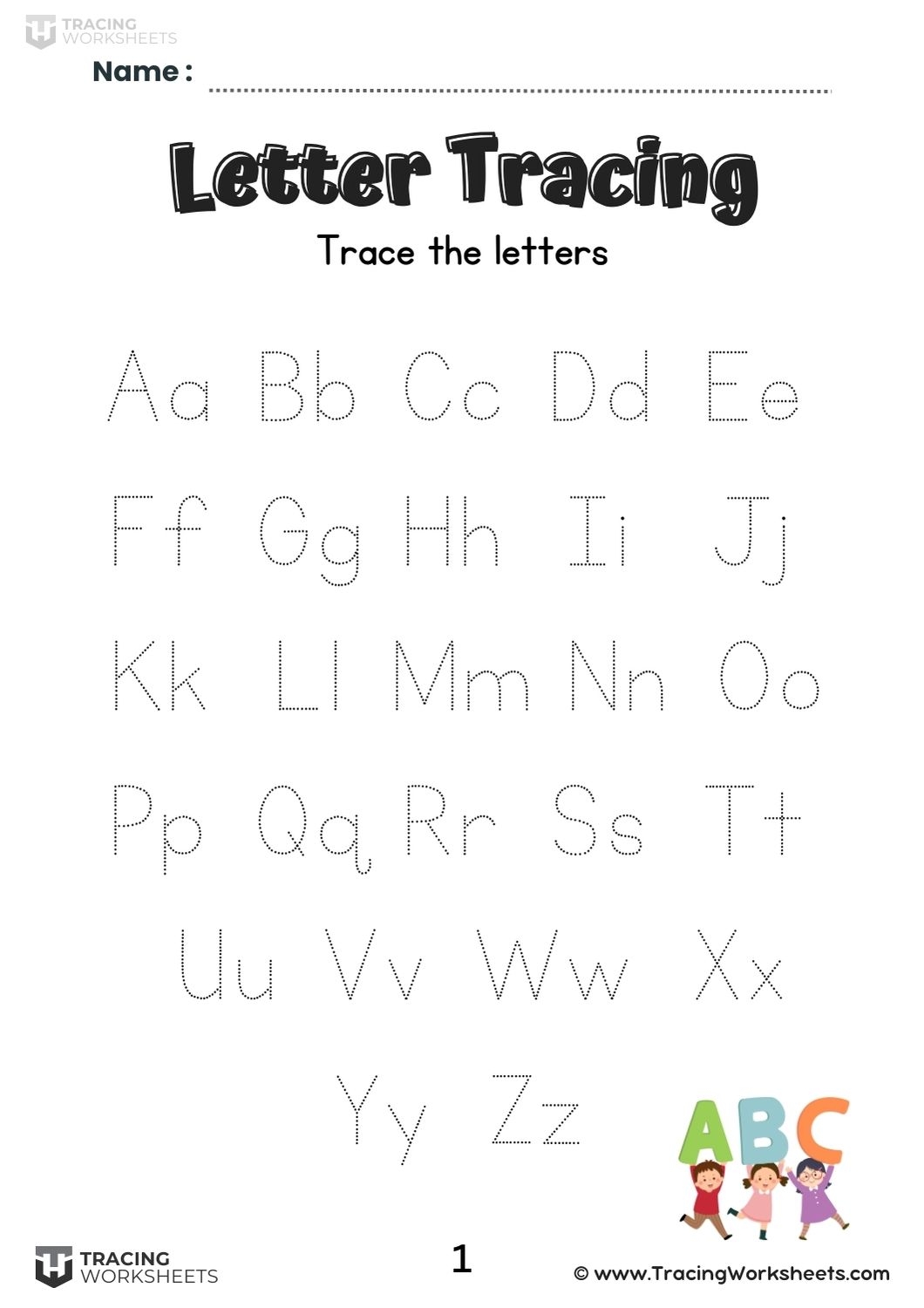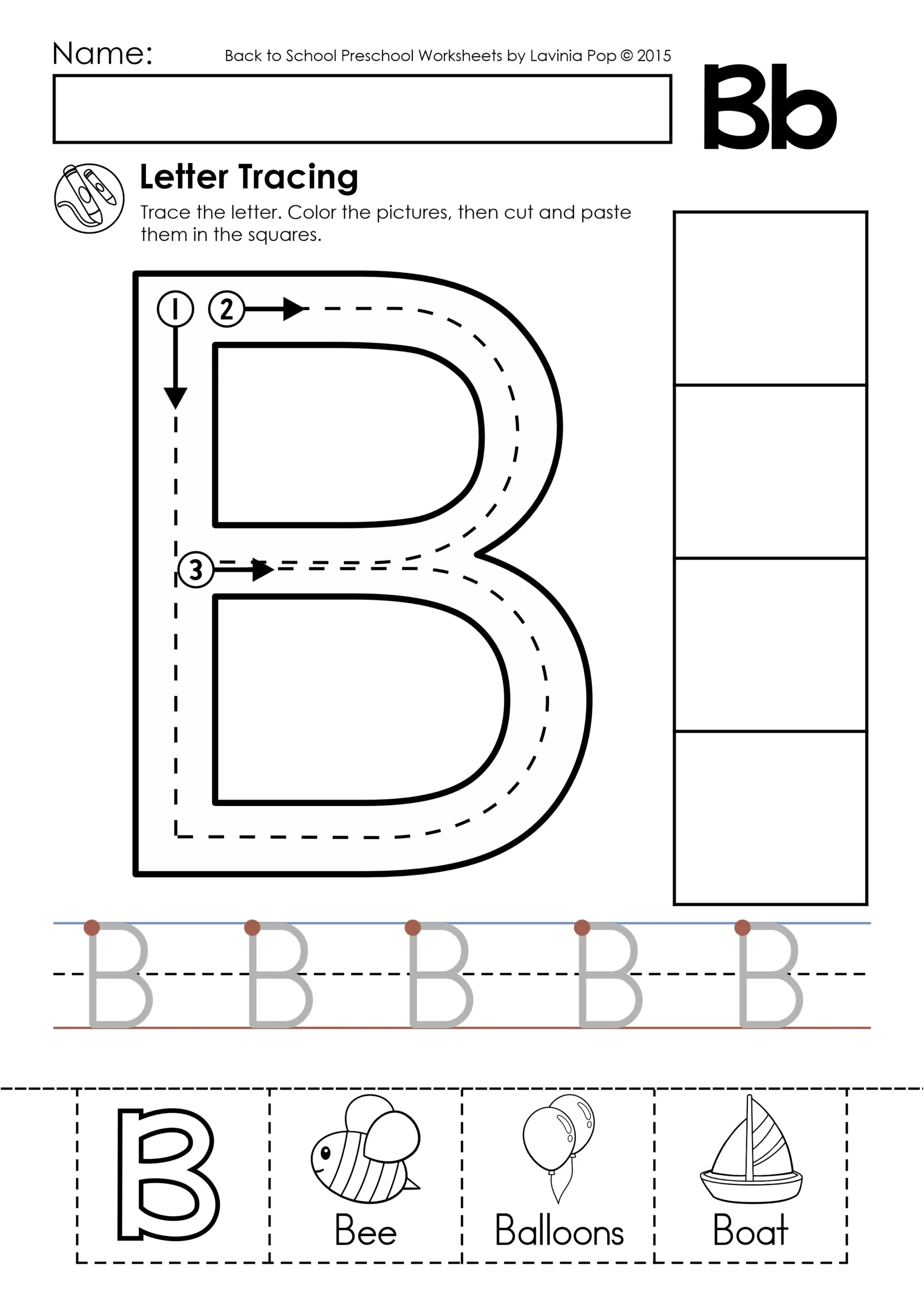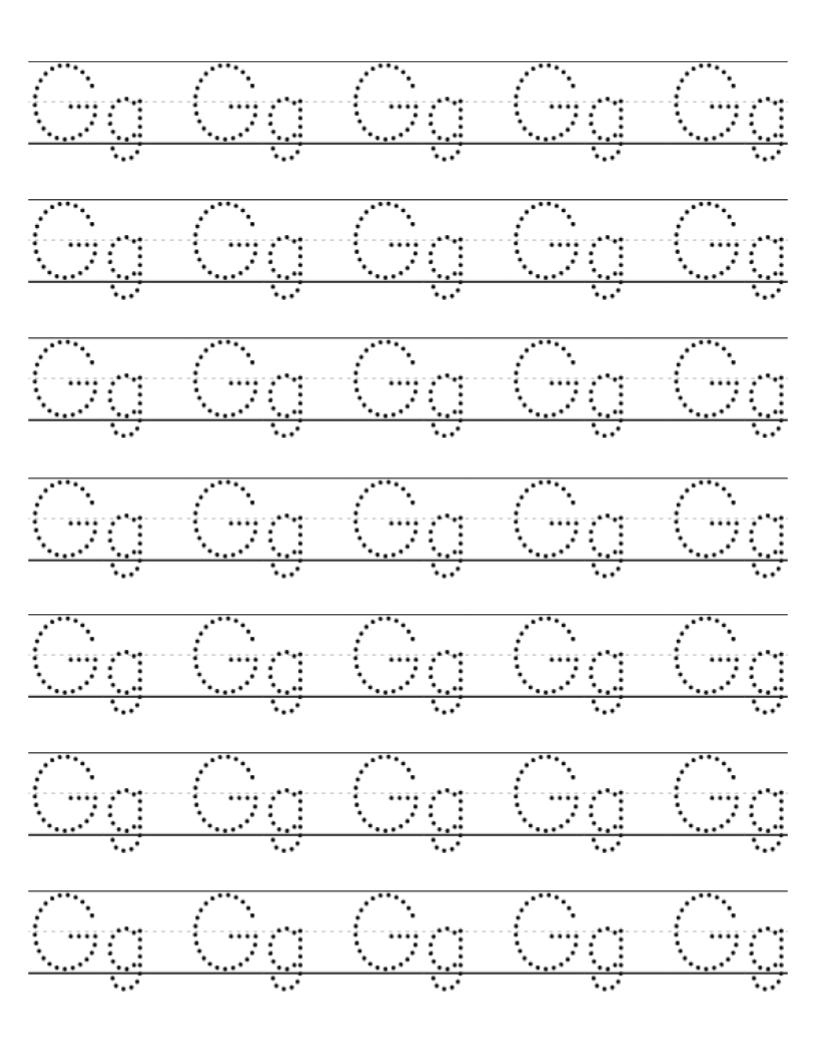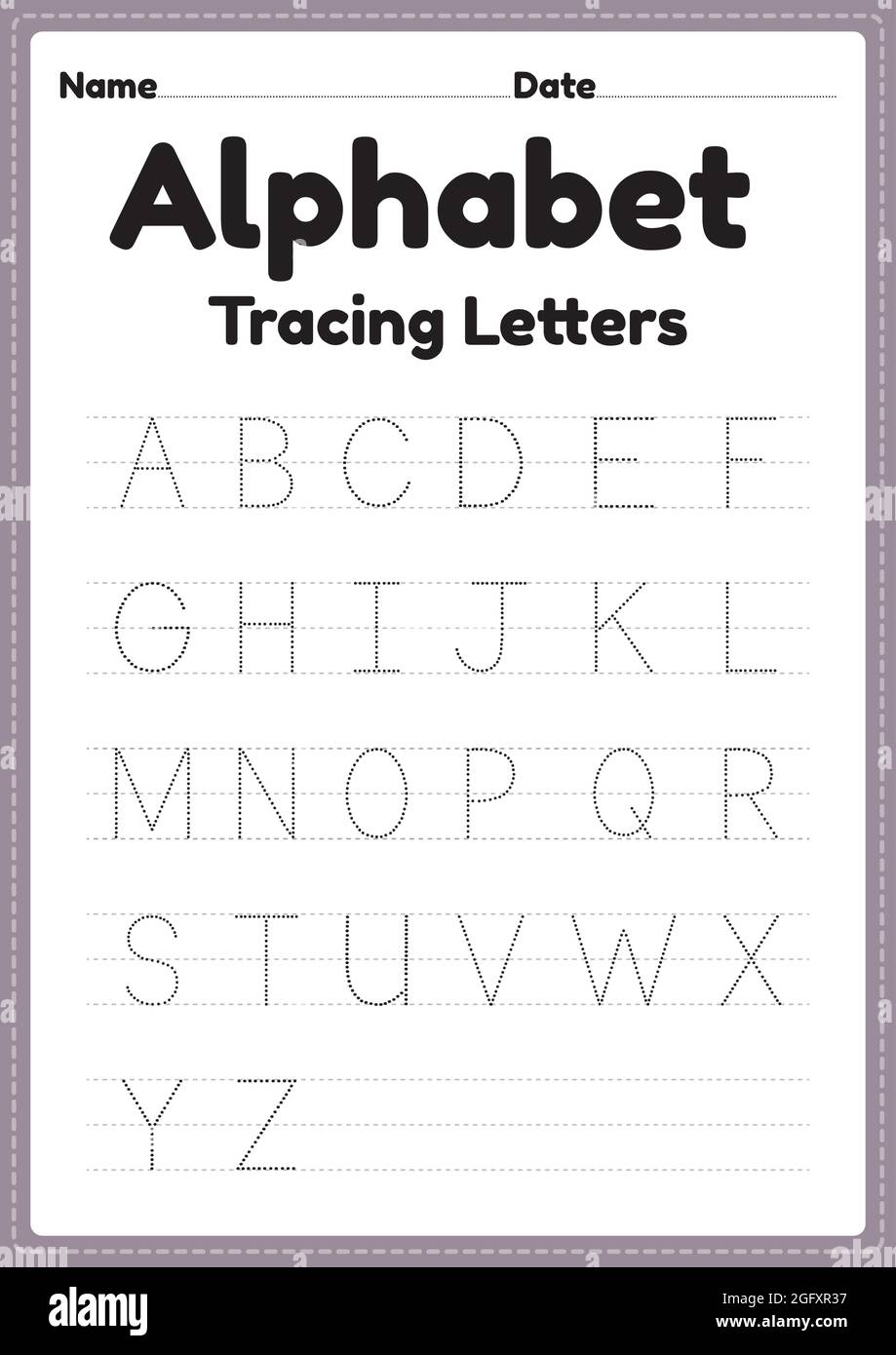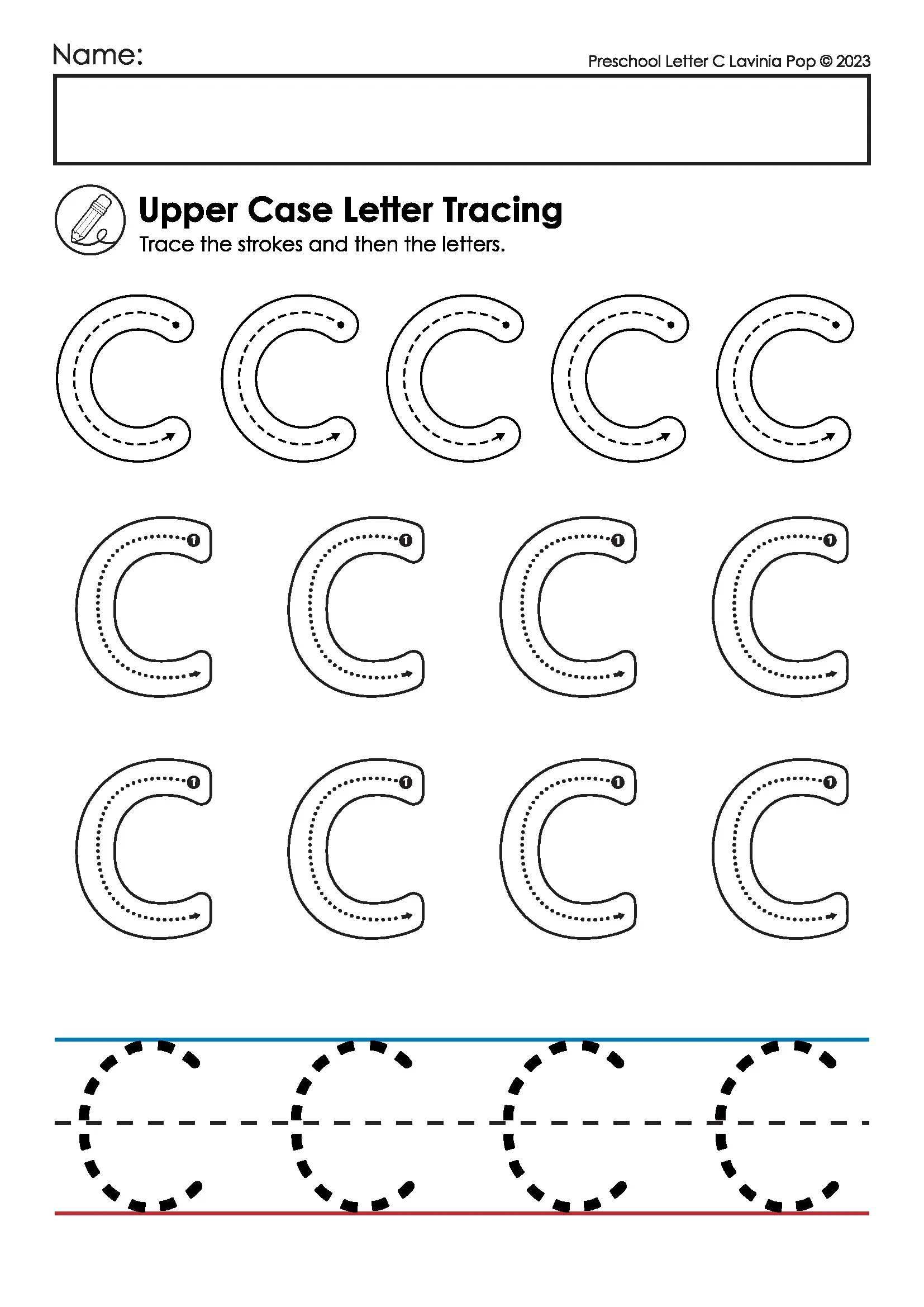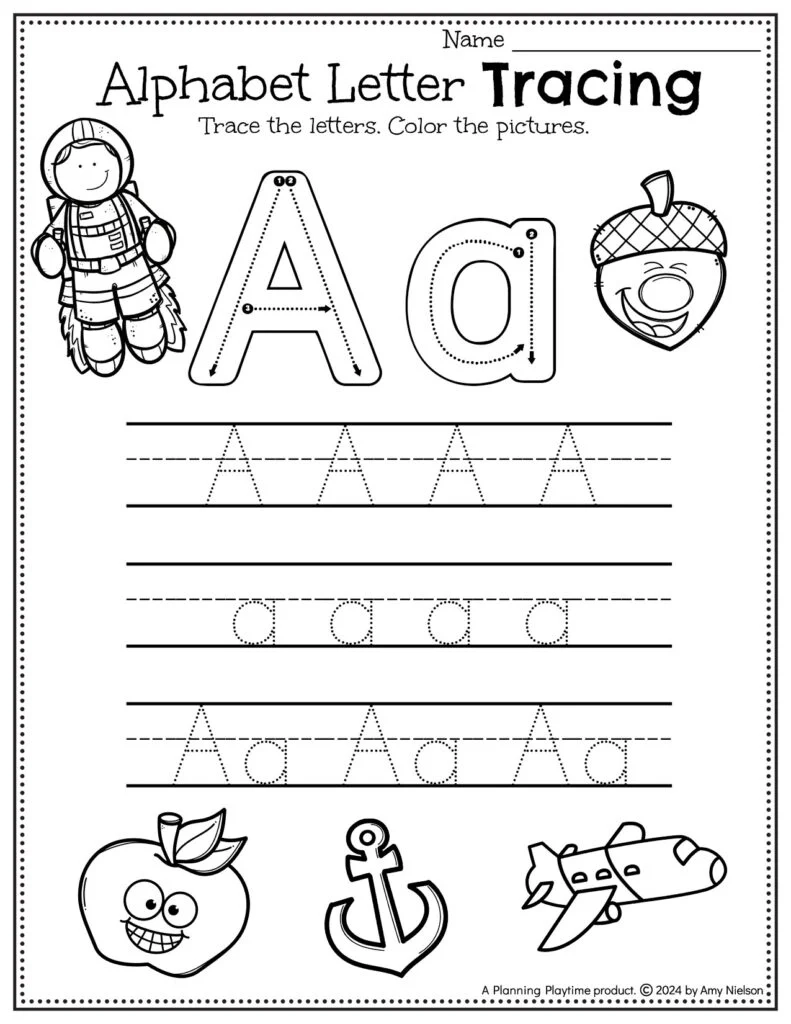
Learning to write is an exciting journey for young children. One effective way to help them develop their writing skills is through the use of tracing fonts. These fonts provide a fun and engaging way for kids to practice their letters.
Preschool Tracing Font
A preschool tracing font is designed specifically for young learners. These fonts typically feature dotted letters that children can trace over, helping them understand letter formation. This method encourages muscle memory, which is crucial for writing skills.
Using a tracing font can also enhance fine motor skills. As children trace each letter, they develop better control over their hand movements. This improvement in dexterity will benefit them in various activities beyond writing.
Another advantage of preschool tracing fonts is their versatility. They can be used in various educational materials, from worksheets to digital apps. This flexibility allows parents and teachers to incorporate tracing into different learning environments.
Incorporating a preschool tracing font into your child’s learning routine can make a significant difference. It not only makes writing fun but also builds essential skills that will serve them well in the future.